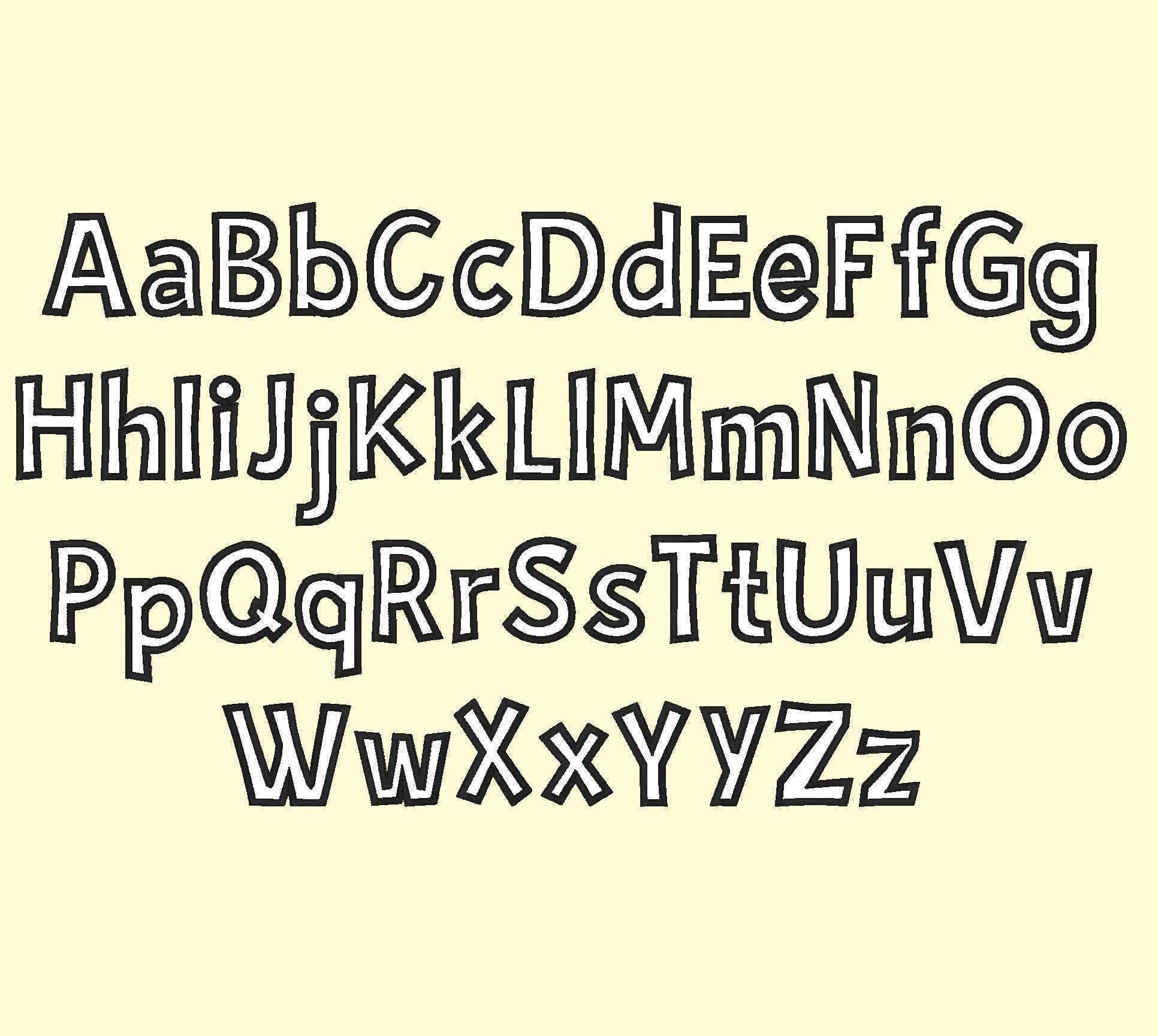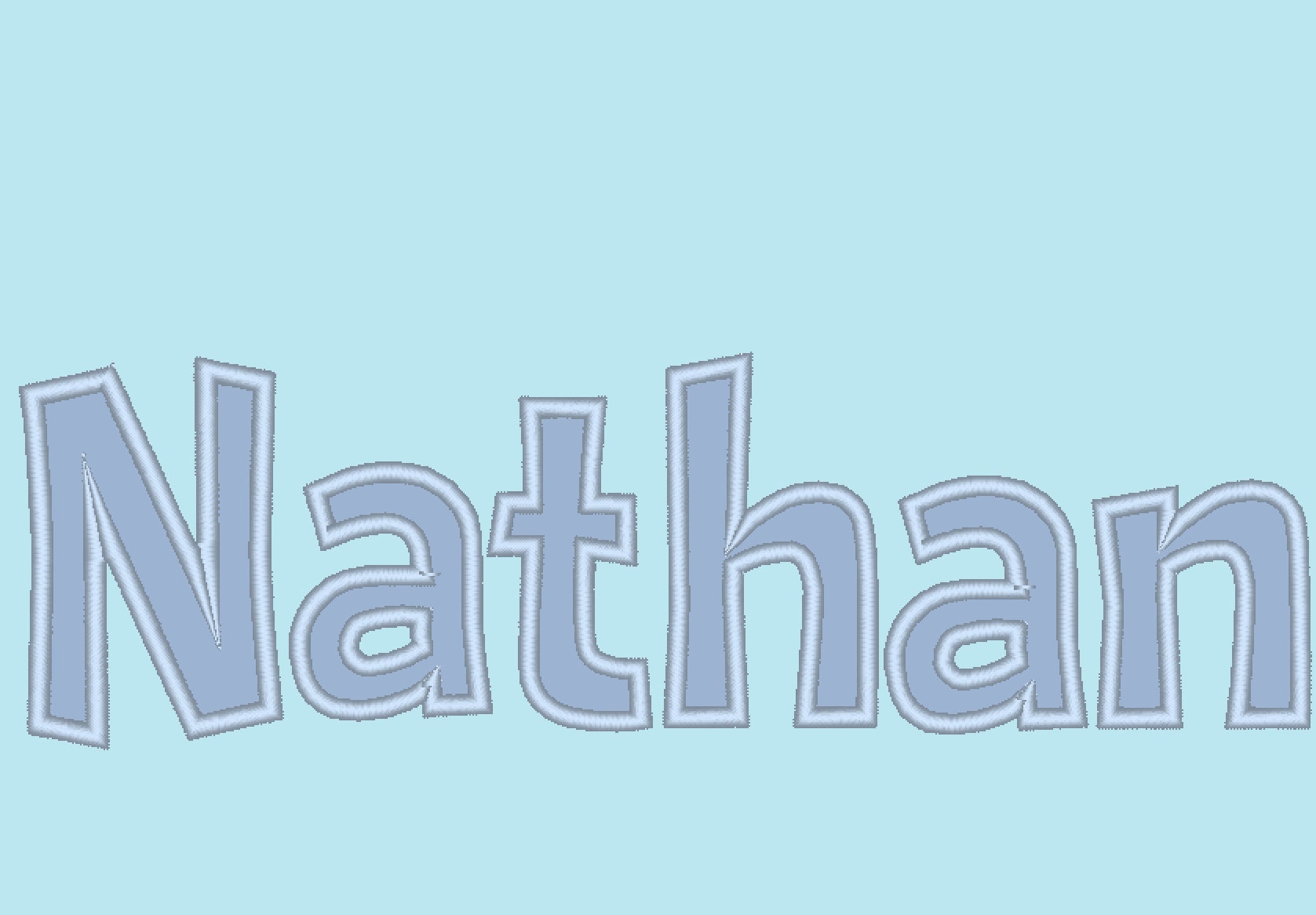
Andy appliqué font
This is applique alphabet, has wide appliqué satin covering stitch, easy to use and perfect for knit fabrics as well
2 1/2 inches
4 1/2 inches